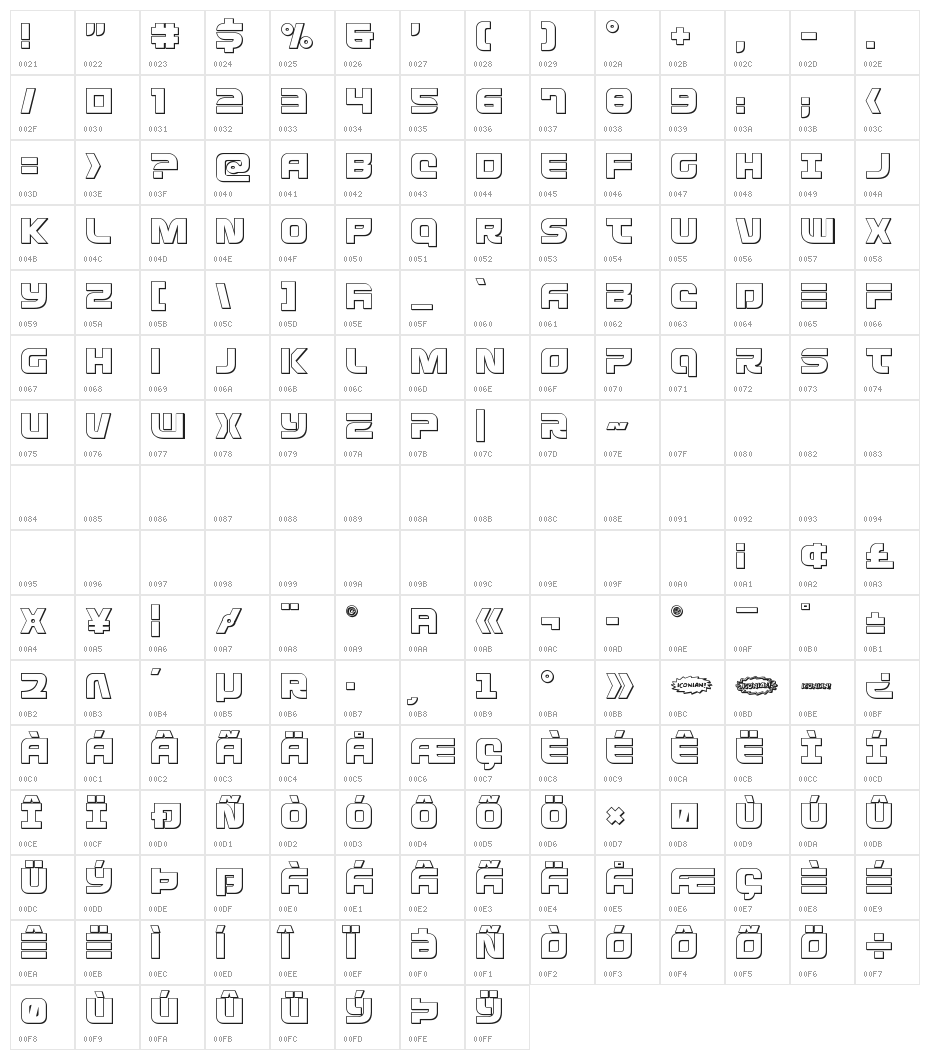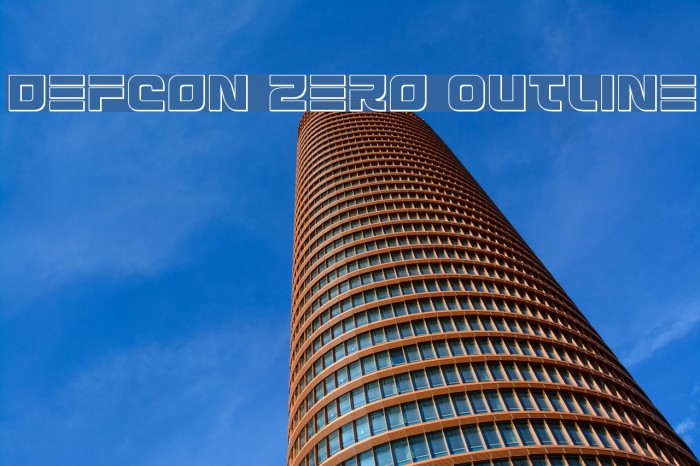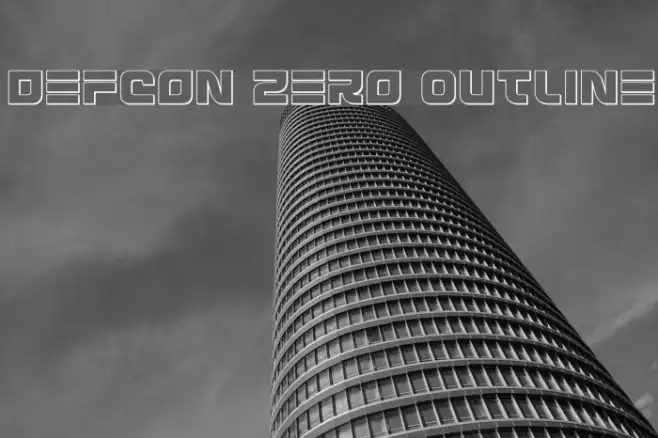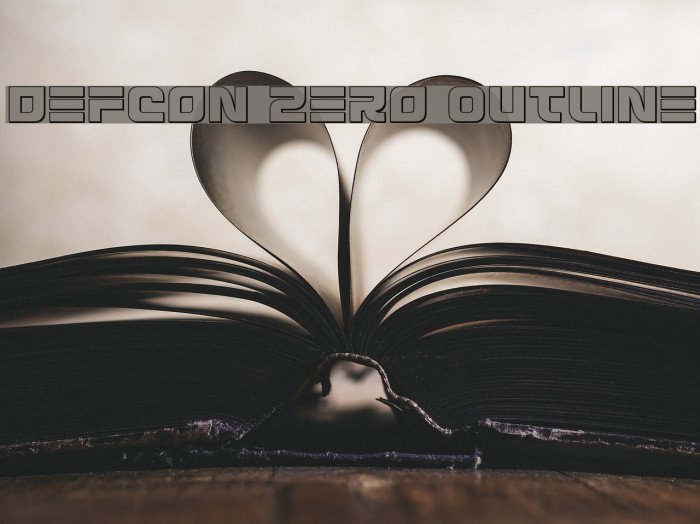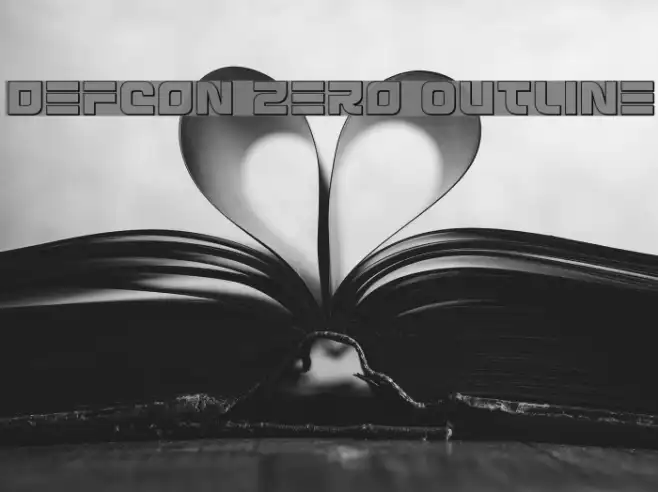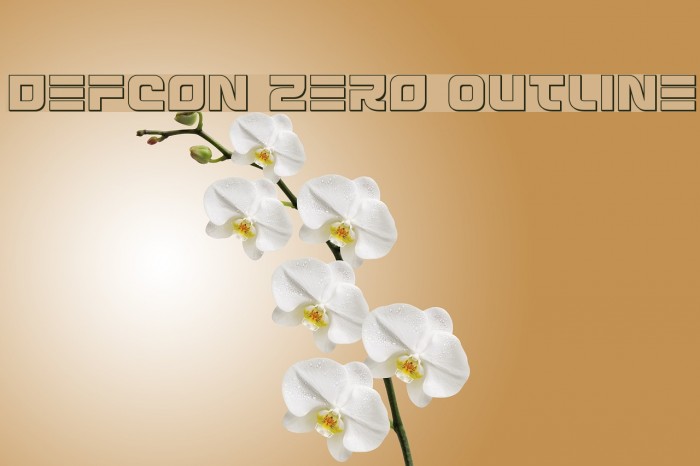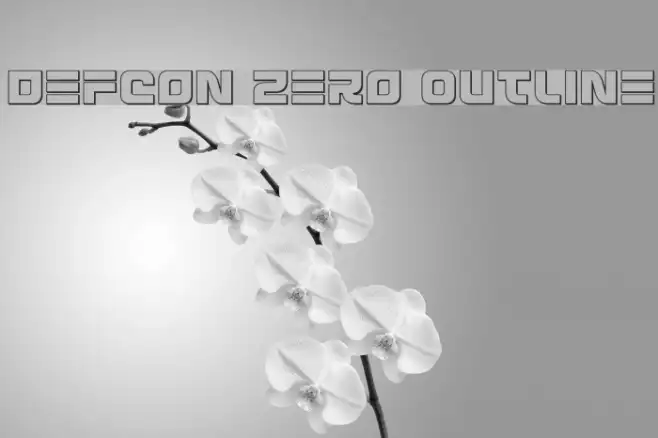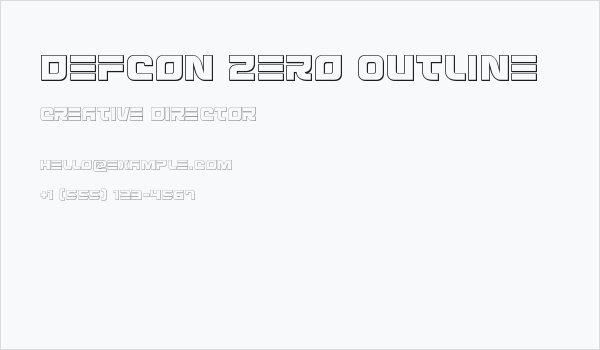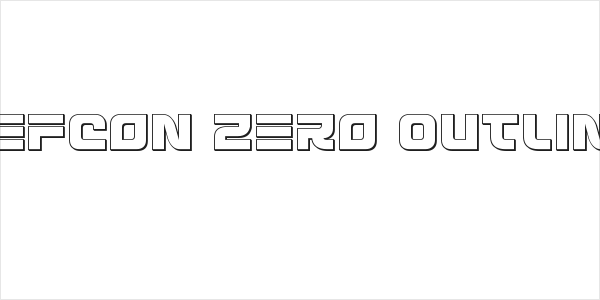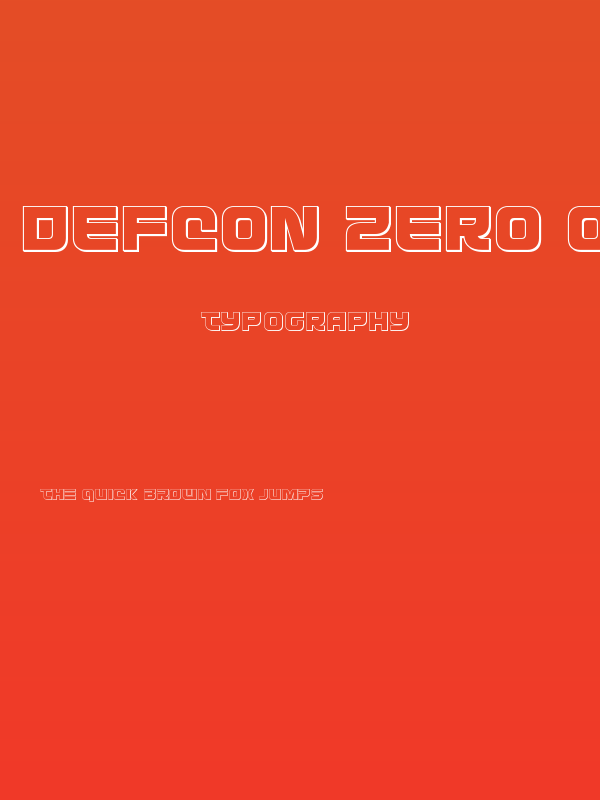
Defcon Zero Outline Font
Defcon Zero Outline Description
This font features a bold, futuristic design with an outline style that gives it a distinct, modern appearance. The characters are geometric and structured, with sharp angles and clean lines that create a sense of precision and technology. The uppercase and lowercase letters maintain a consistent style, ensuring uniformity across different text elements. The numbers and special characters are designed to match the overall aesthetic, making this font suitable for a variety of digital and print applications. Its unique outline style makes it stand out, ideal for projects that require a strong visual impact.
| Proposed Projects | Ideal for technology-themed designs, video game graphics, sci-fi posters, and branding for tech companies. |